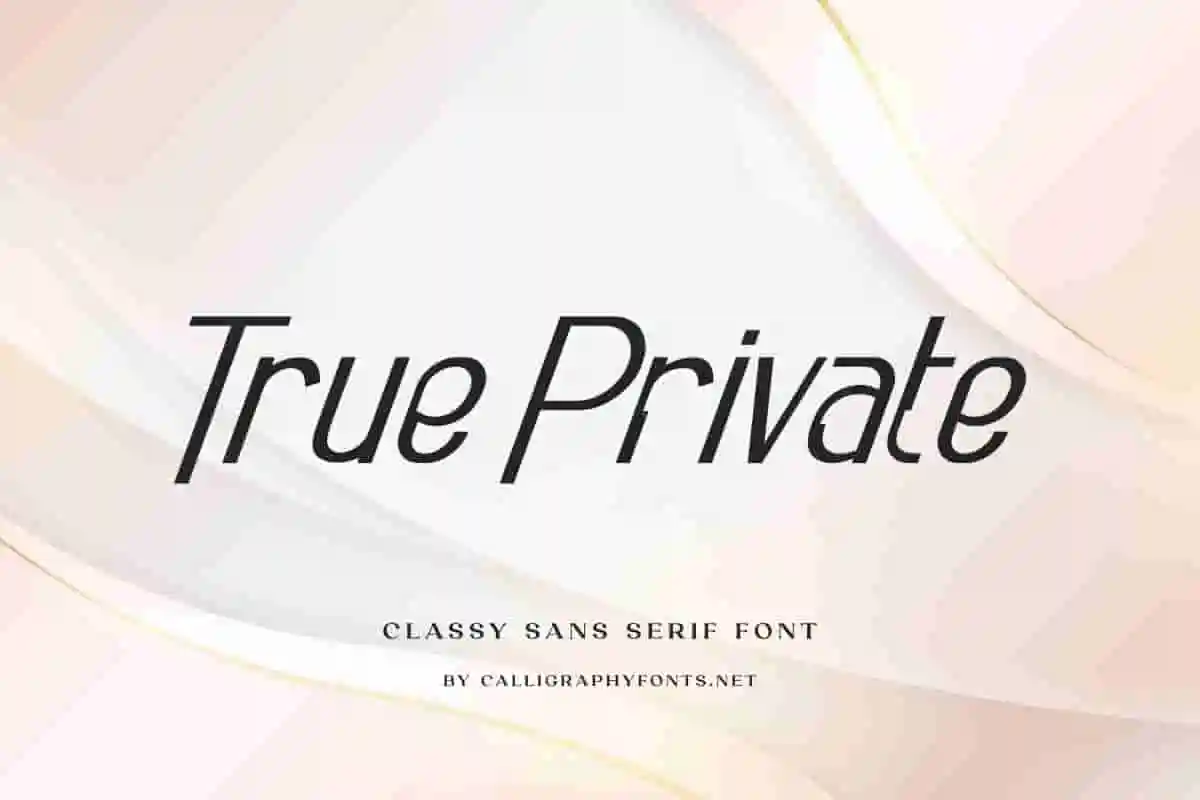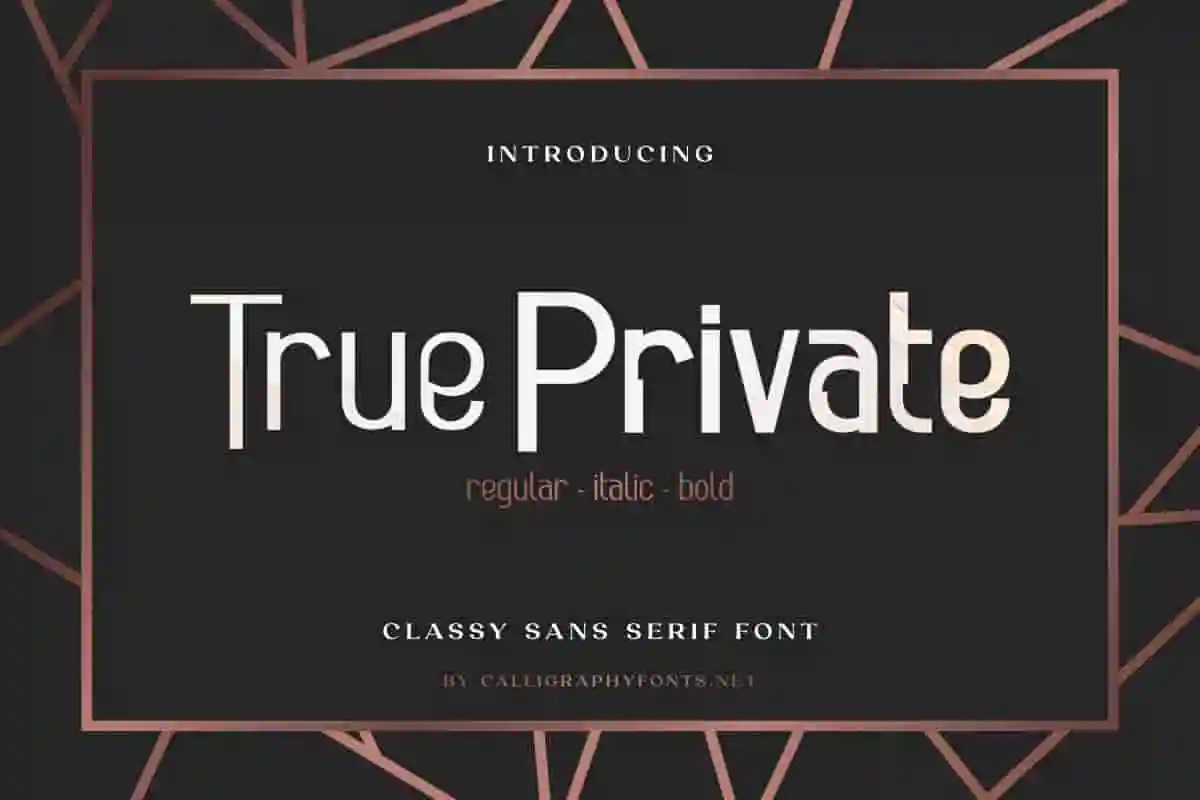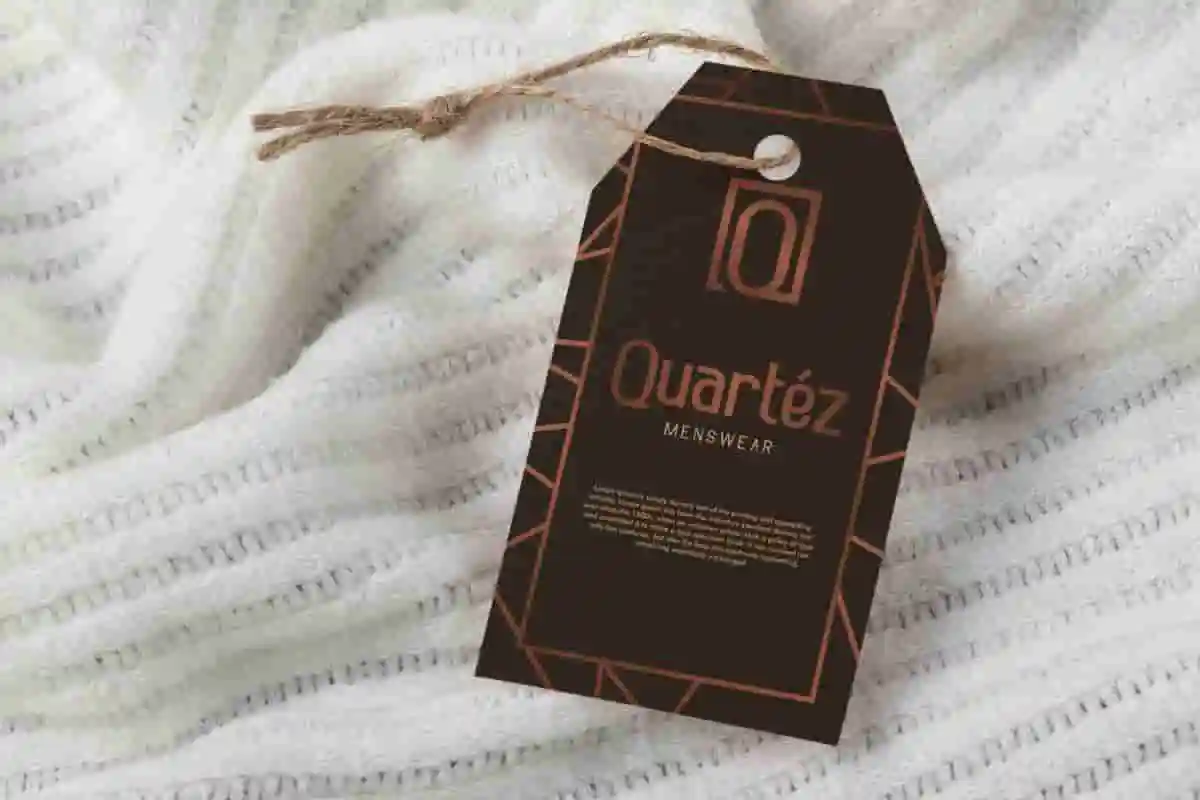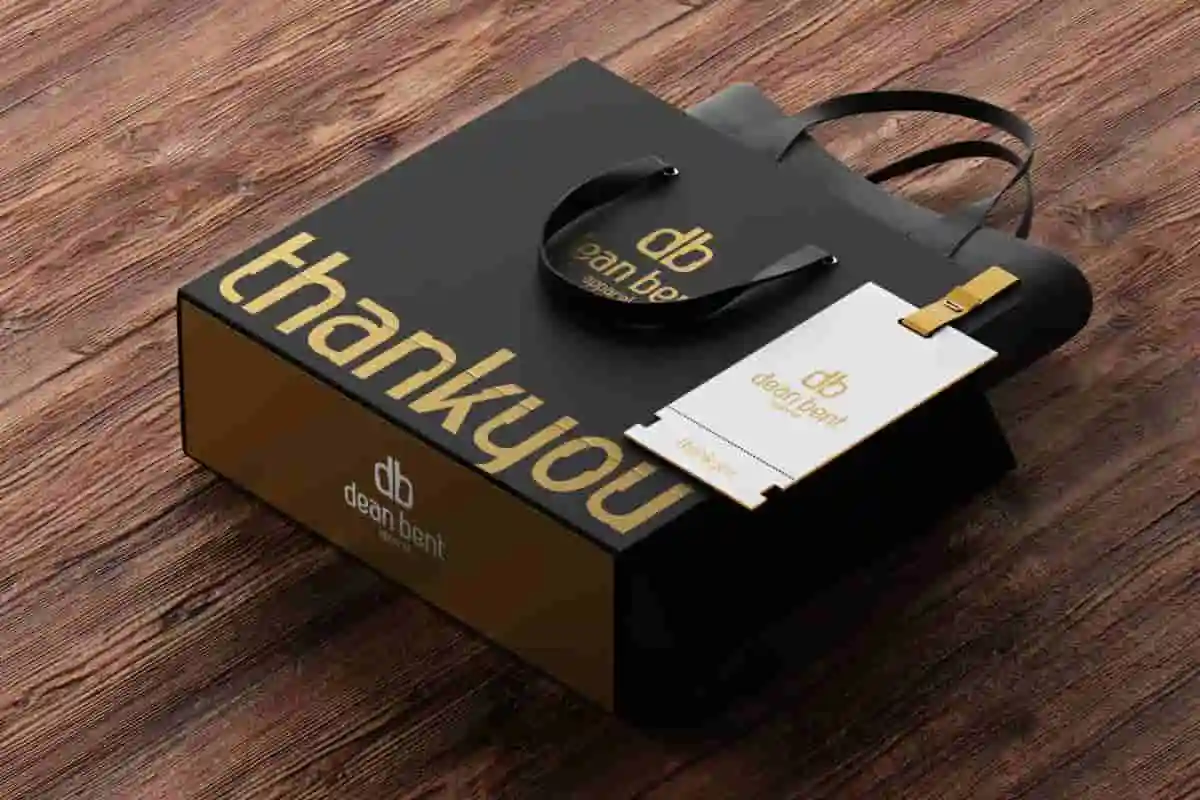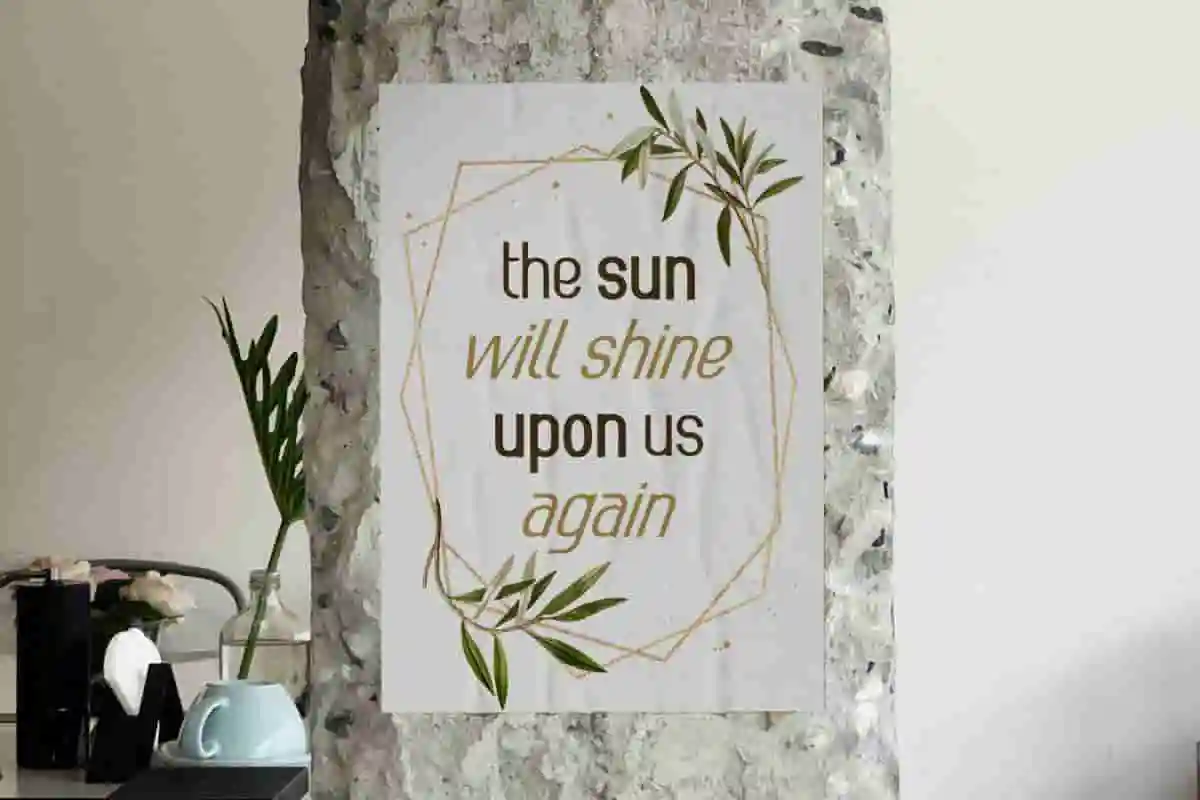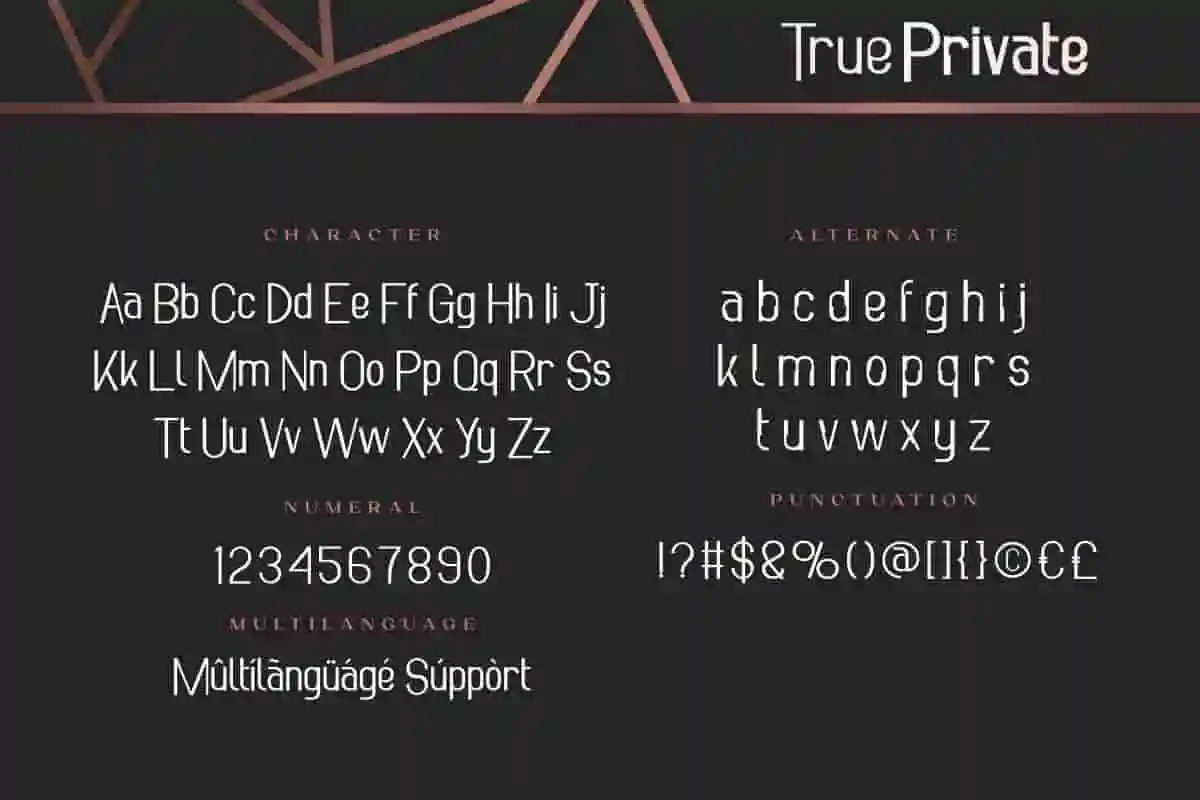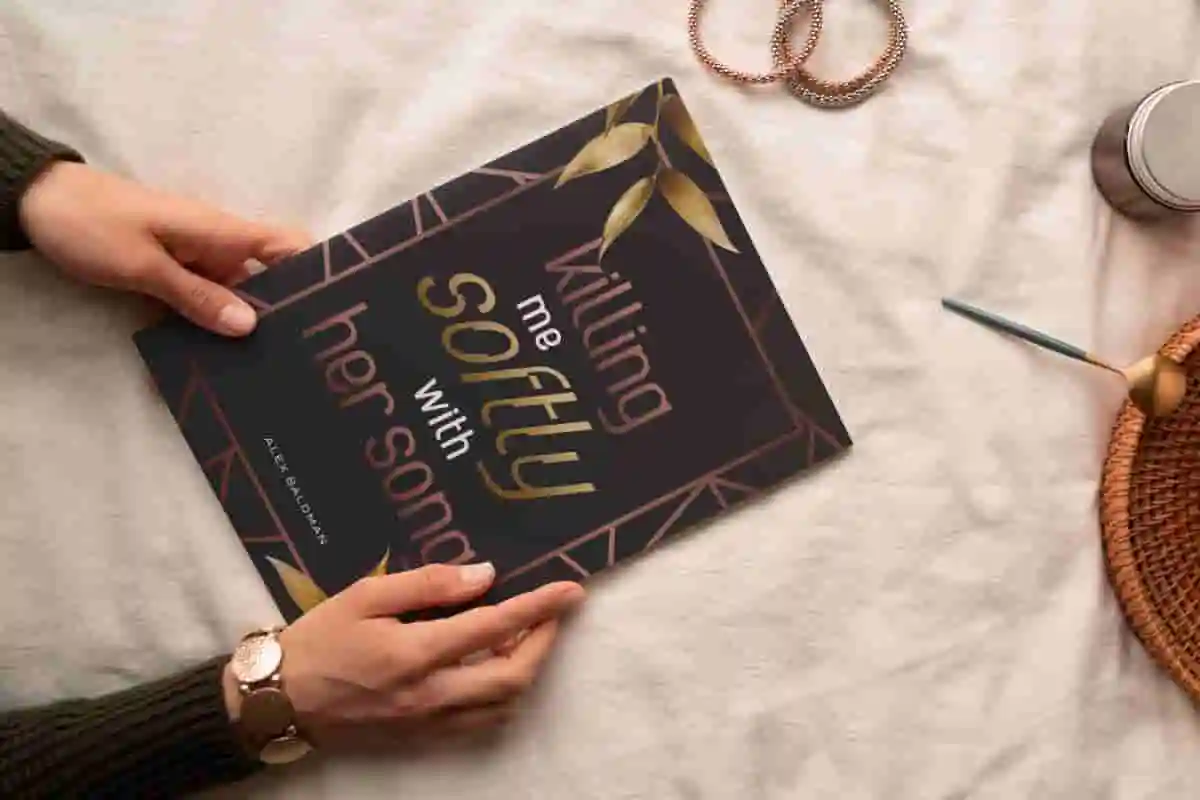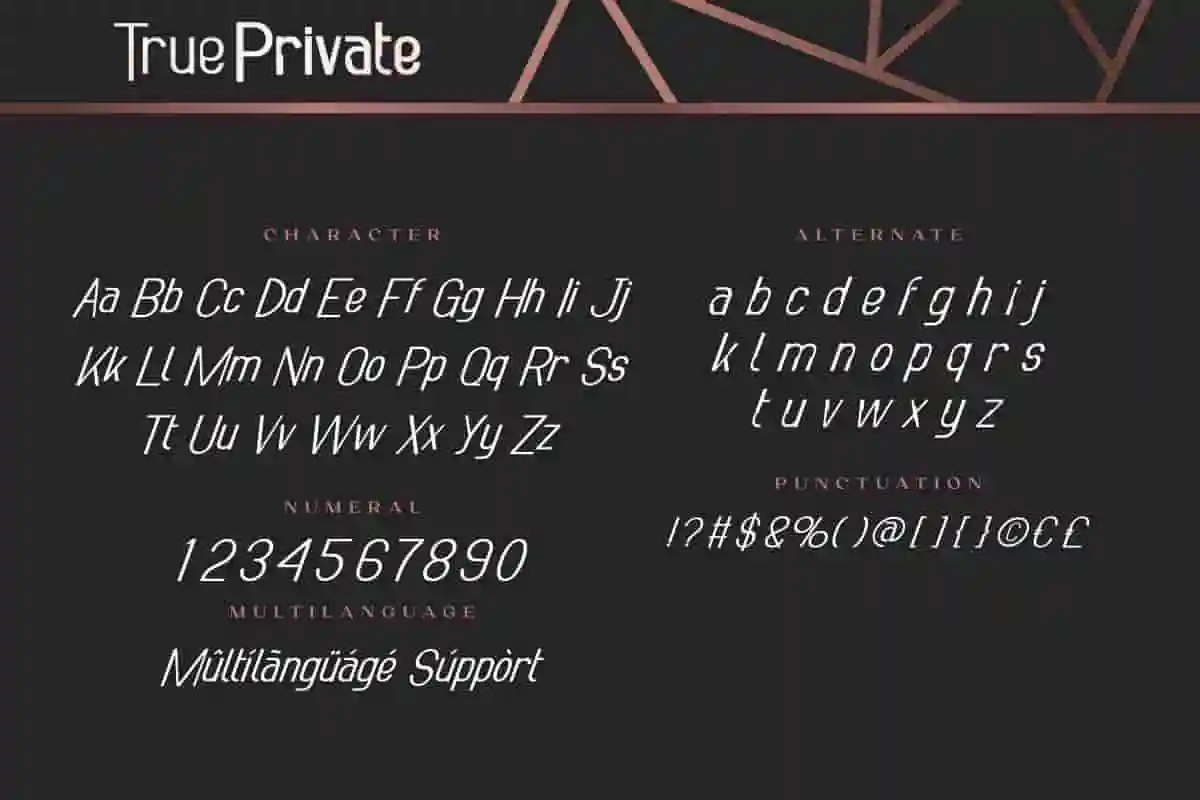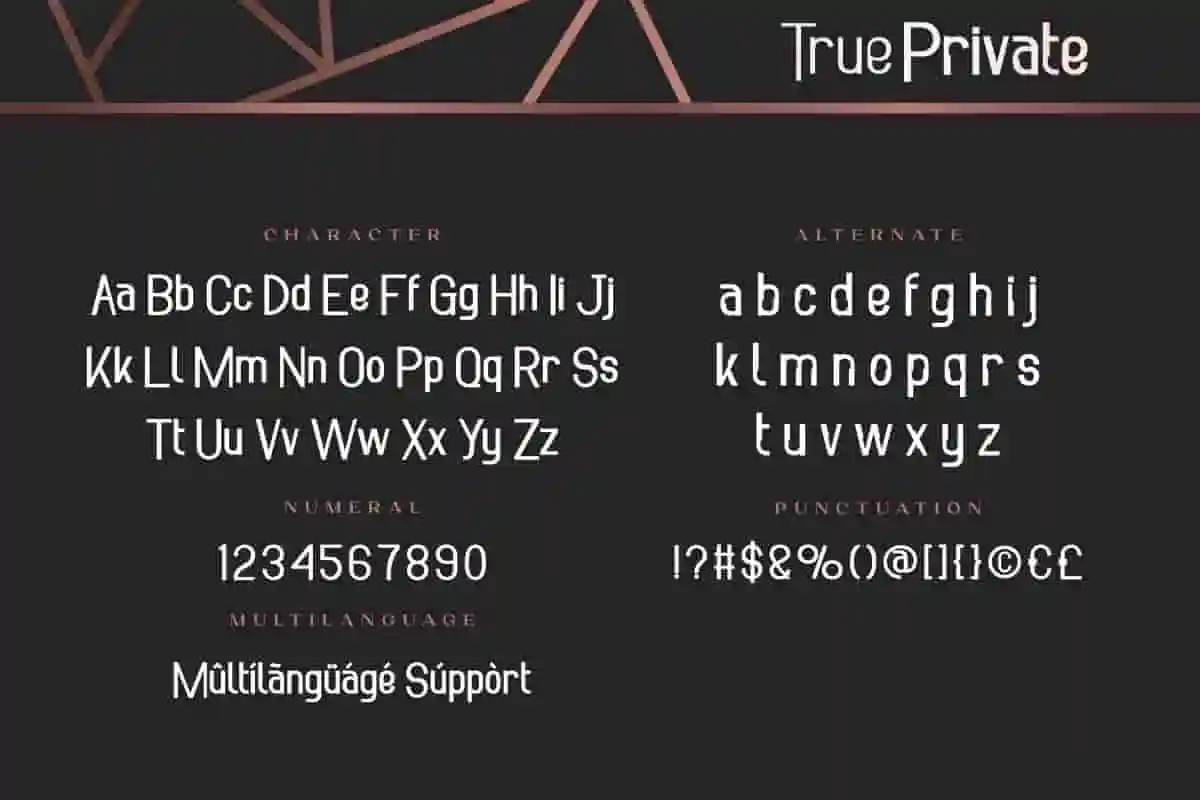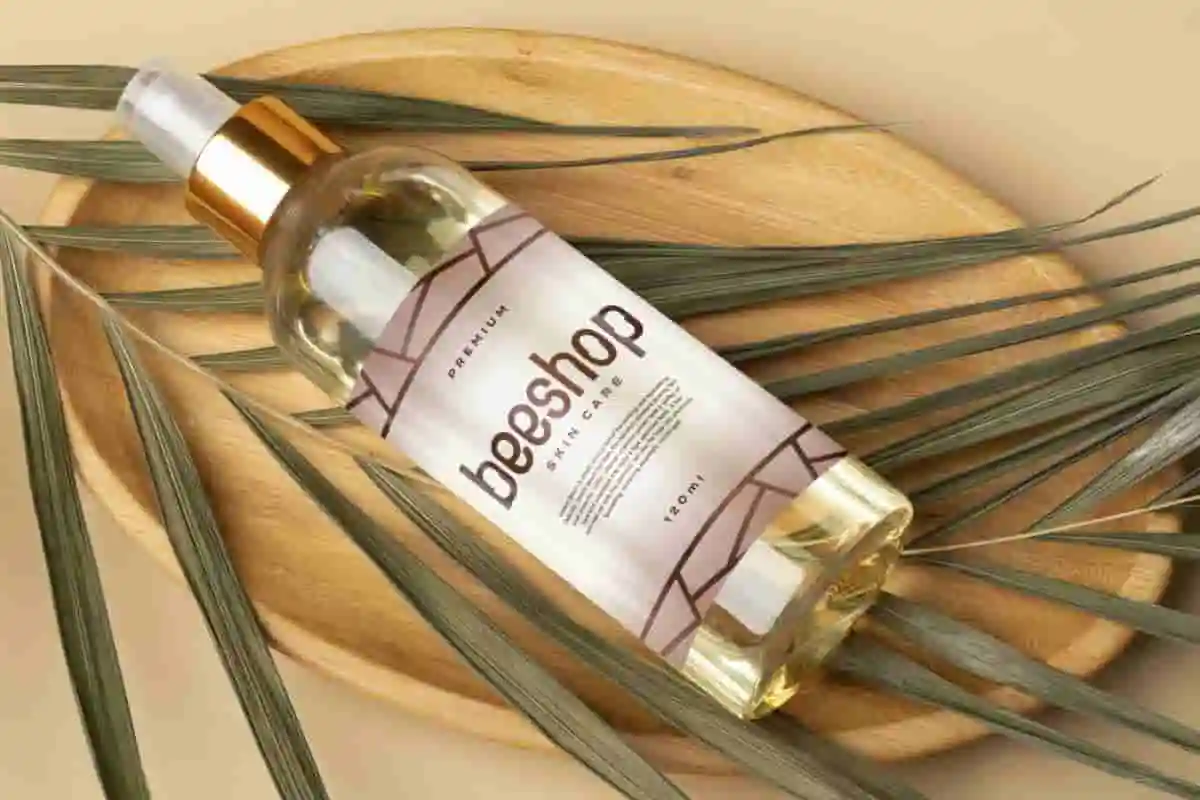
True Private Sans Serif Font
True Private Font is a unique sans serif font that looks futuristic packaged in 3 types of styles, namely: Regular, Italic and Bold. It also makes anything more flexible including, billboard, fashion brand, header, poster, skincare, etc.
True Private Font is a classy sans serif font which is very interesting so it will look futuristic packed in 3 types of styles, namely: Regular, Italic, and Bold. Slim and tall style with several unique shapes present such as 3D makes it more flexible for various designs, billboard, body text, header, mockup, poster, product label, shopping bag brand, etc.
Looking for a font that delivers clarity, confidence, and timeless style? Introducing True Private Sans Serif Font – a clean, modern typeface designed for brands, creators, and businesses that value simplicity with impact. Whether you’re creating logos, marketing materials, website headers, or social media graphics, True Private offers a sleek and professional look that enhances readability and brand presence. Its minimalist design makes it highly versatile – perfect for both digital and print use.
In a world full of noise, your message deserves clarity. Introducing True Private Sans Serif Font — a bold, clean, and modern typeface built for professional, minimalist design. Crafted with precision and intention, True Private brings sophistication and confidence to any project. Whether you’re designing for a startup, tech brand, fashion label, or personal portfolio, this font offers the perfect blend of simplicity and style.
Looking for a modern font that’s clean, versatile, and effortlessly stylish? Meet True Private Sans Serif Font – the perfect typeface for designers, entrepreneurs, and creatives who want their work to look bold, clear, and professional. True Private offers a refined minimalist aesthetic that works beautifully in any design setting – from logos and branding packages to web design, app interfaces, presentations, and more. Its strong geometry and balanced proportions make it easy to read while still feeling sleek and modern.
- Modern & MInimalis Sans Serif
True Private Font with technology theme will take you to the future, because this font is so sophisticated and timeless that it will be suitable for any related industry, such as author, barbershop, café, fashion item, film, game, handicraft, jewelry, race, skincare, sport, etc.